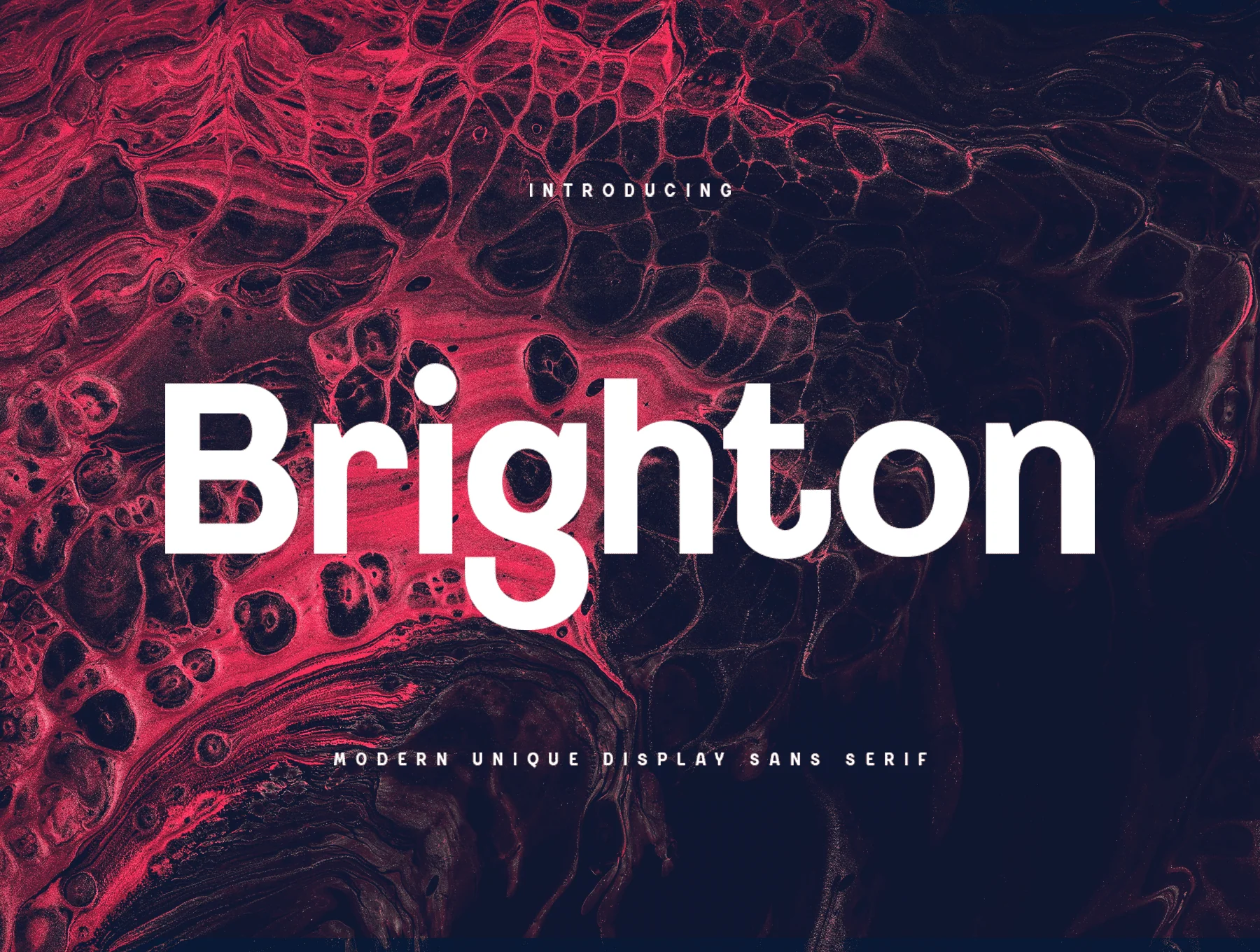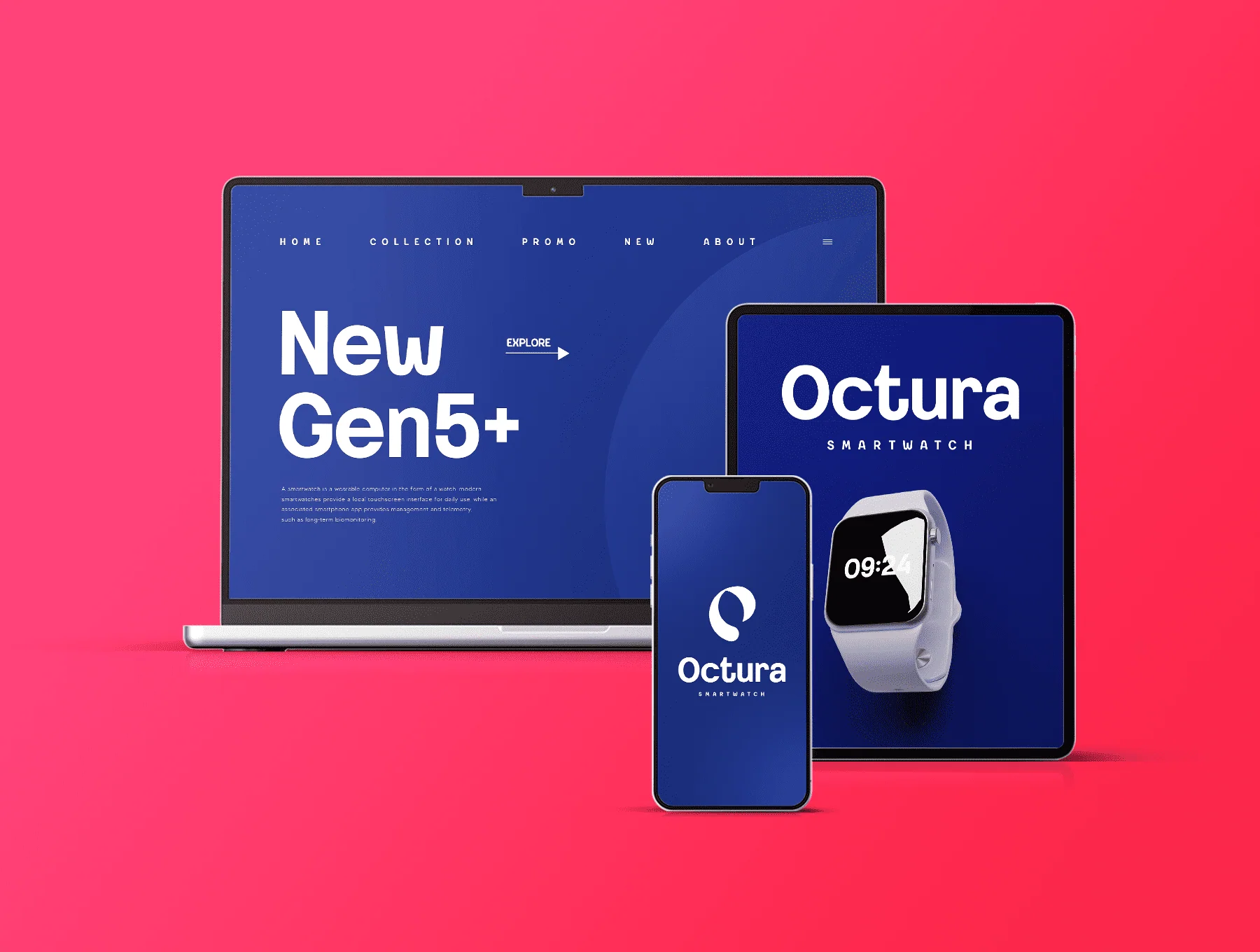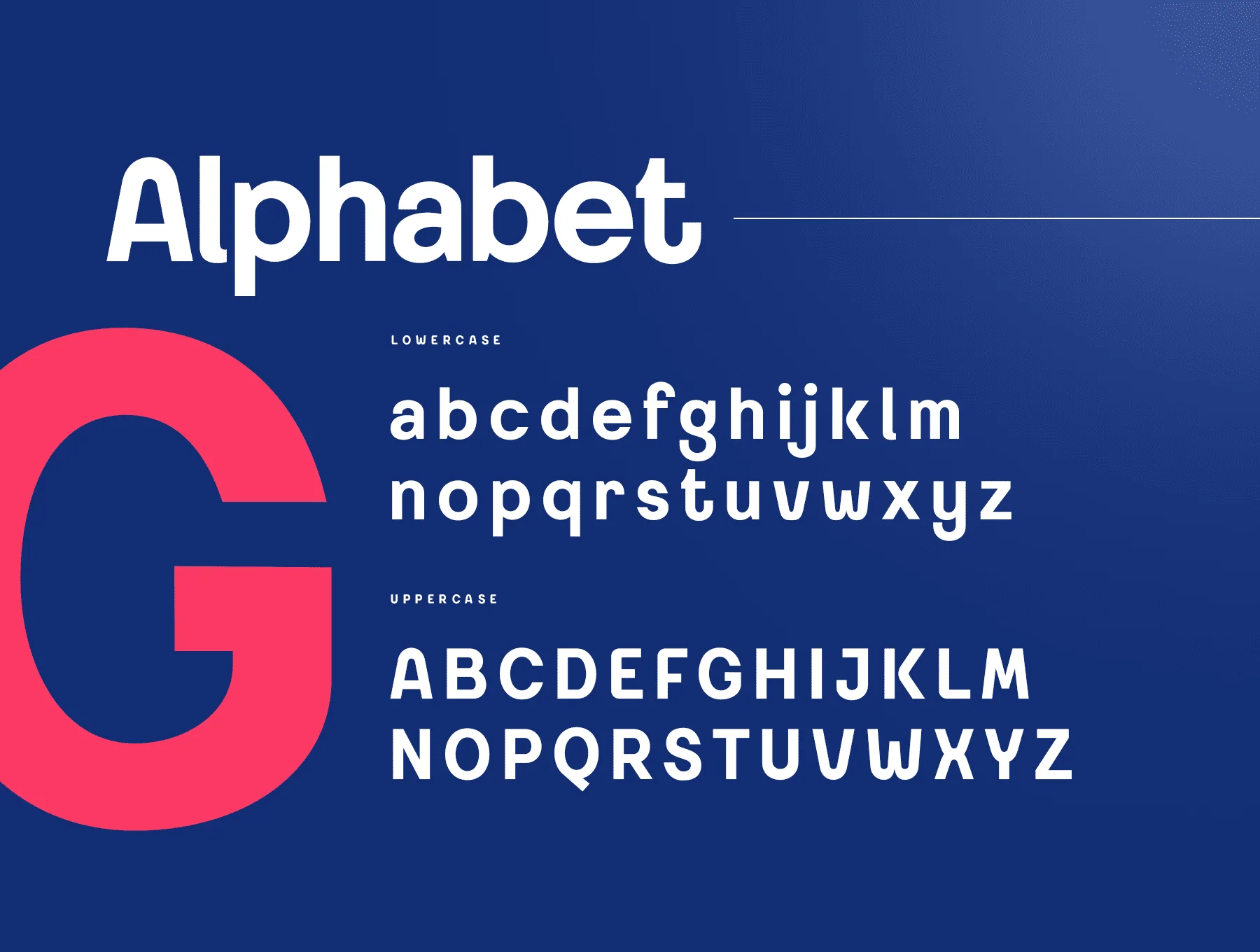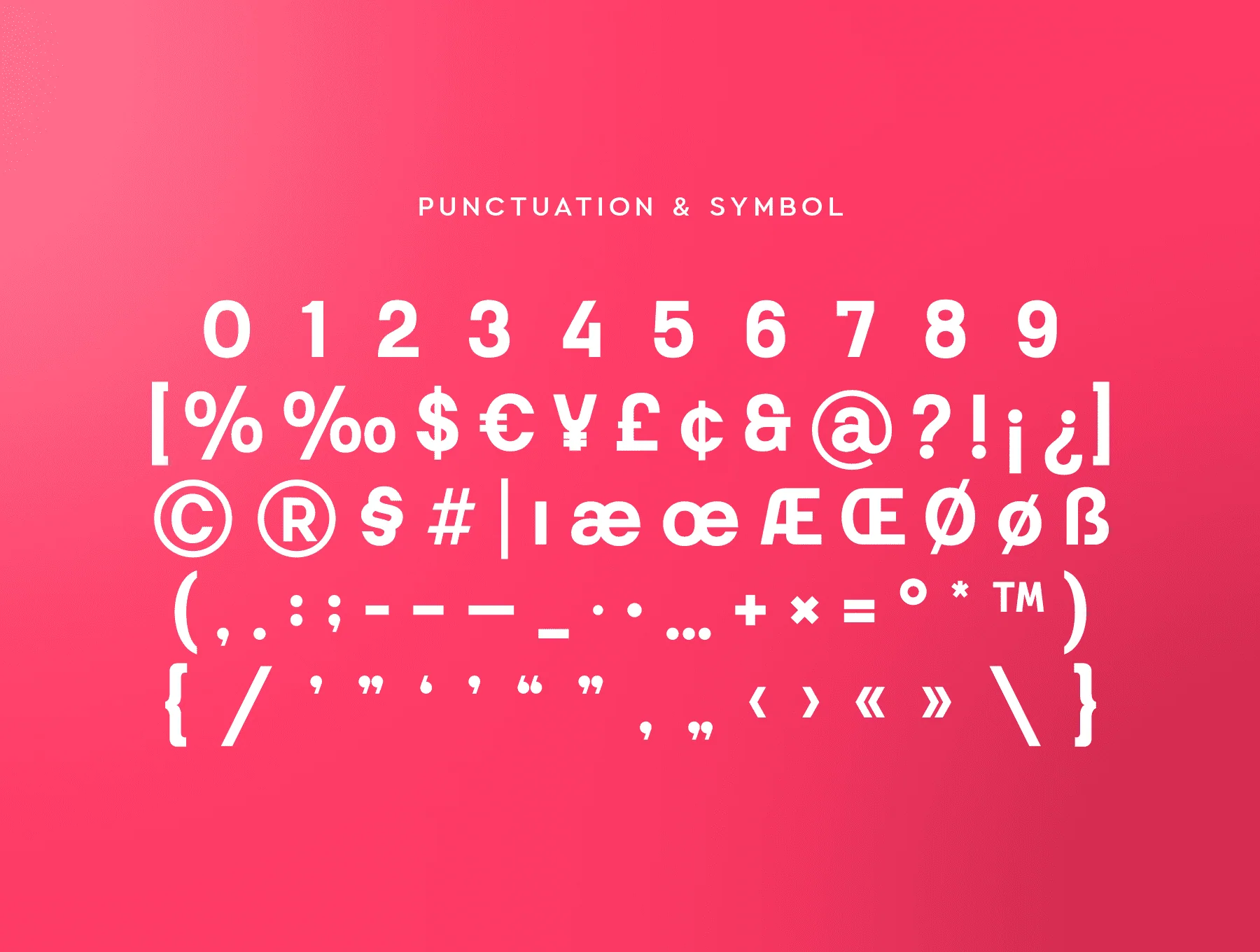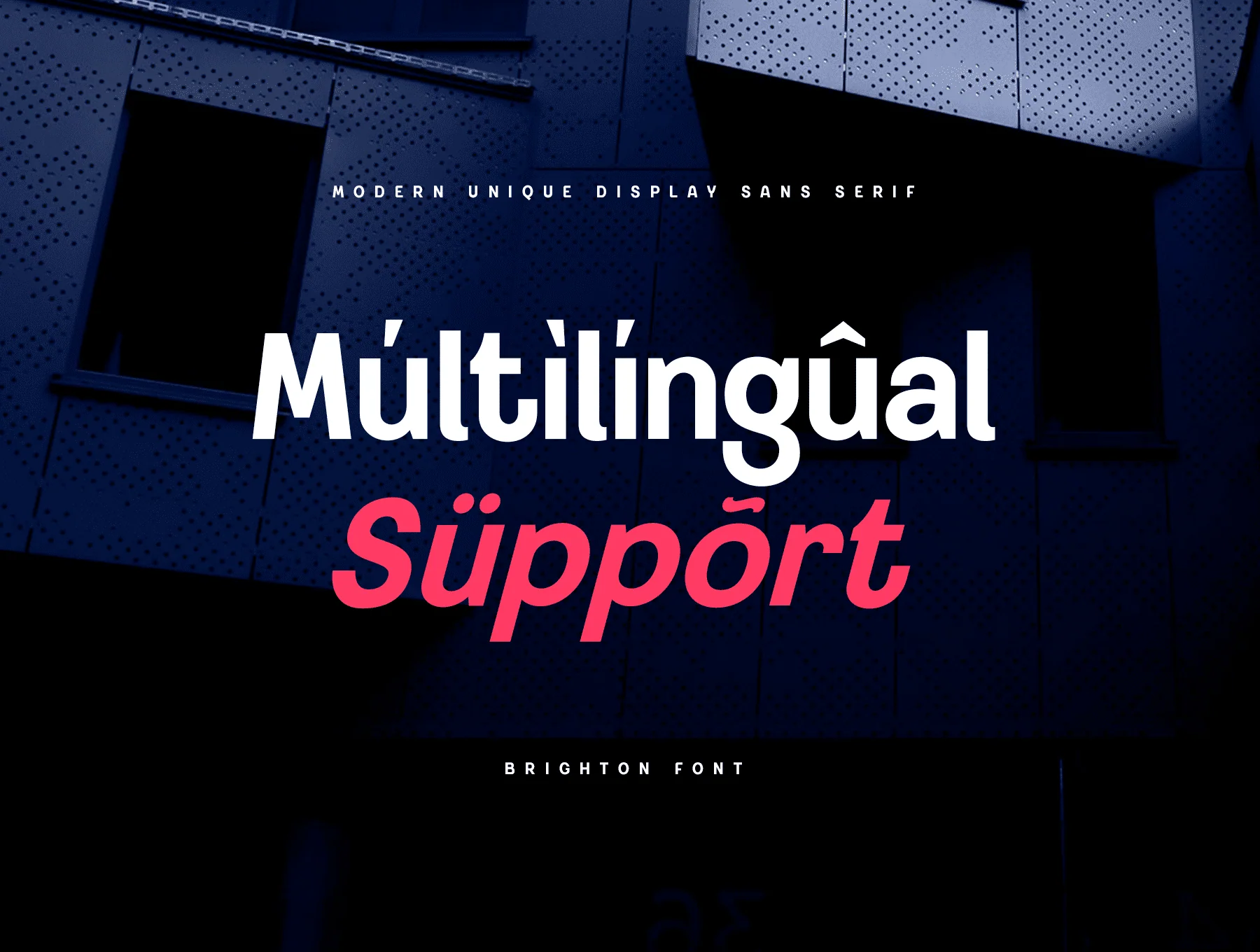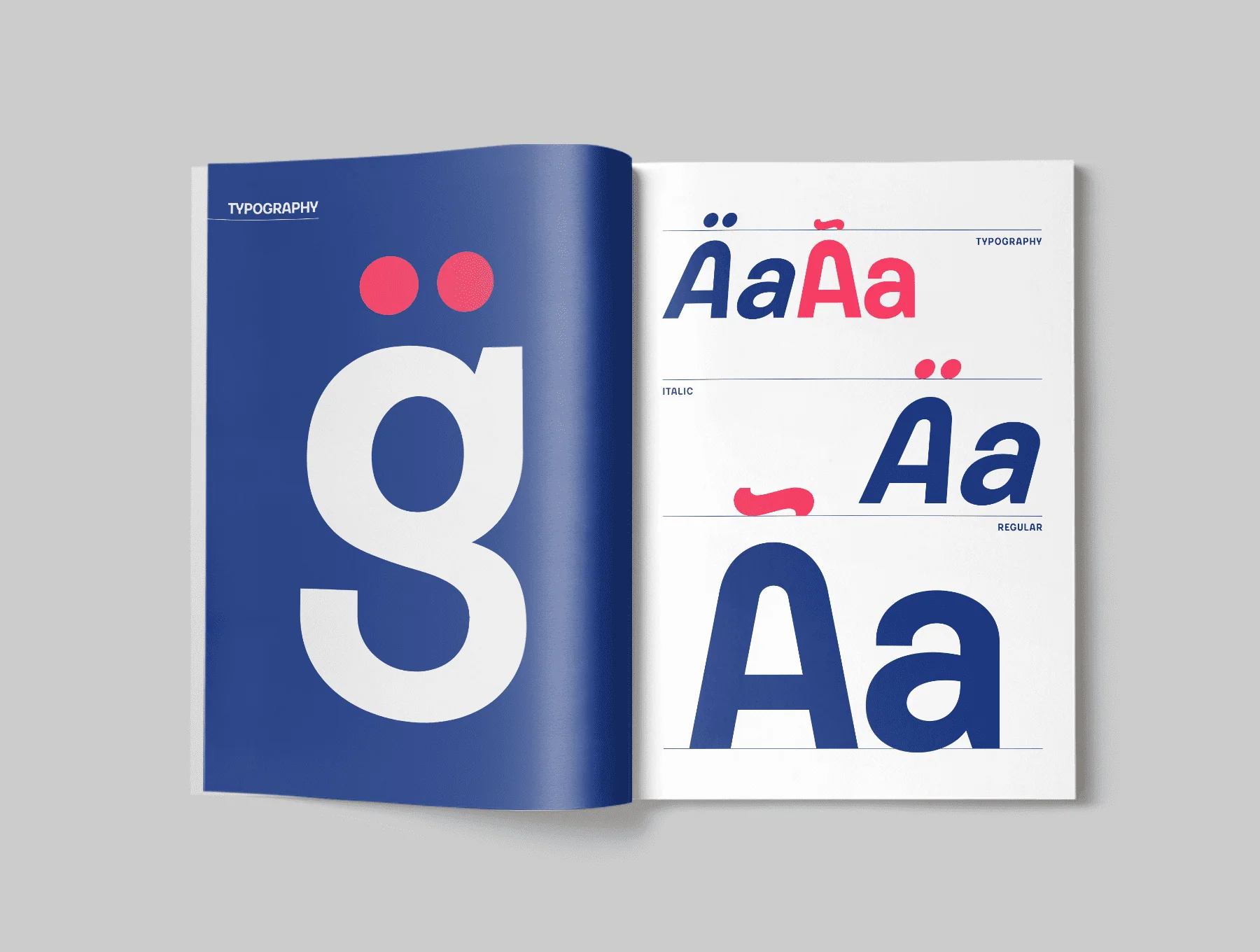
Brighton Font
Brighton - Contemporary Distinctive Sans Serif Display Font
Brighton is a contemporary display sans serif crafted for corporate logos and striking visual identities. Its clean, minimalist look offers distinctive shapes and flexible combinations while staying highly readable. Ideal for branding, posters, social media, ads, packaging, labels, photography watermarks, invitations, stationery, and more.